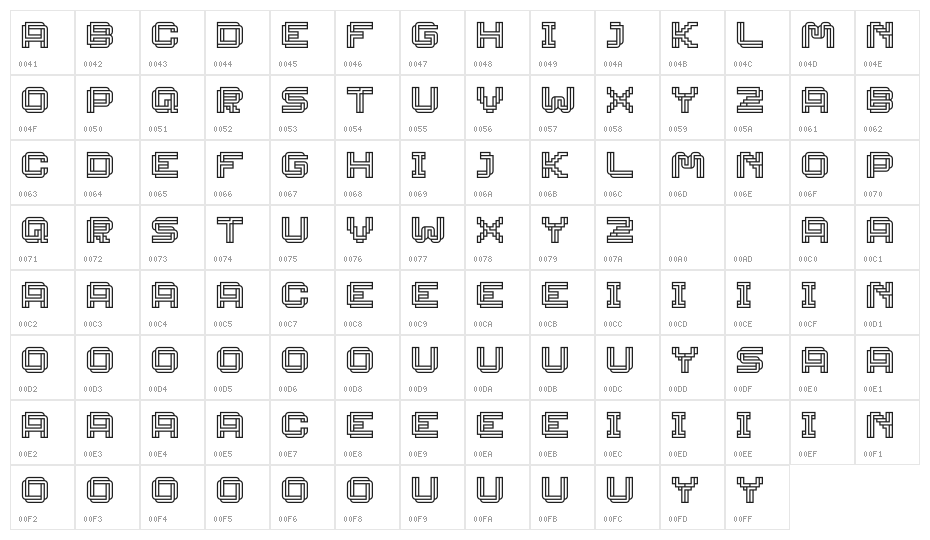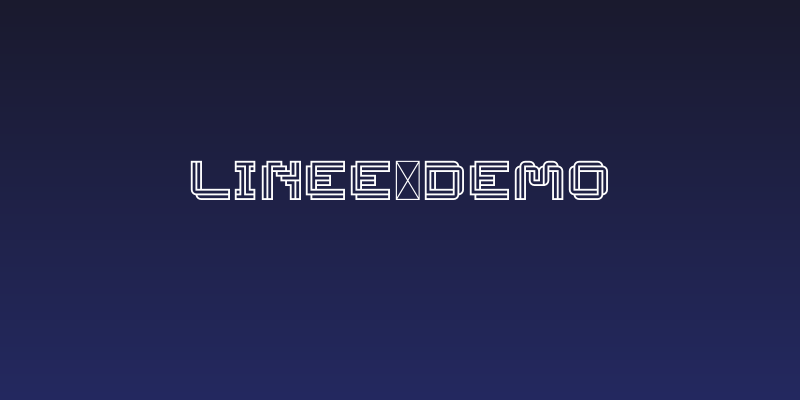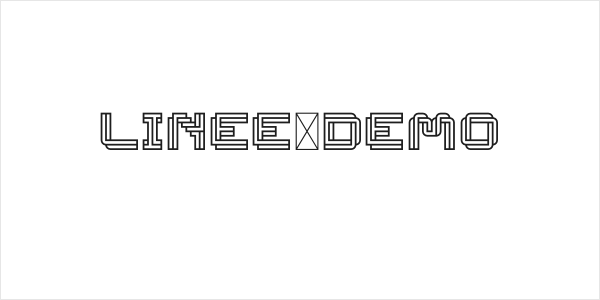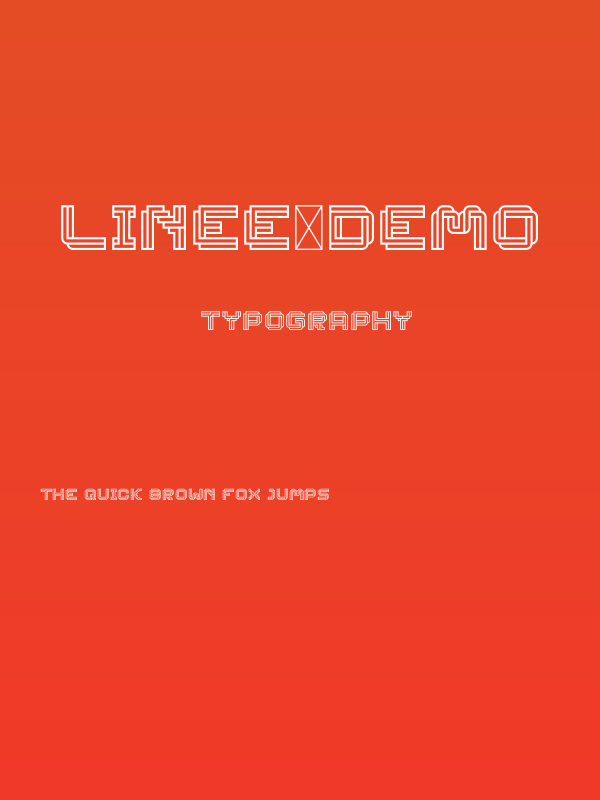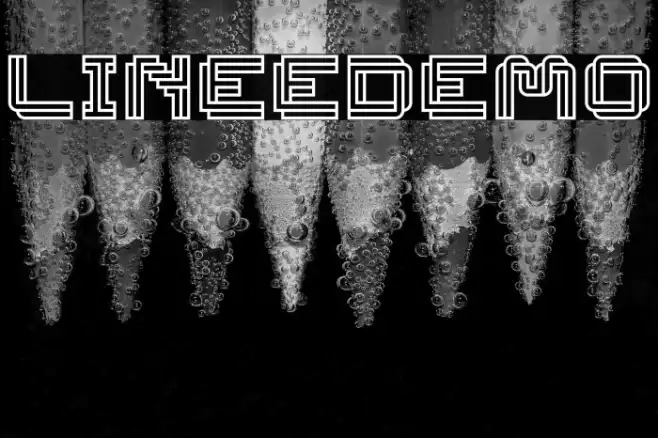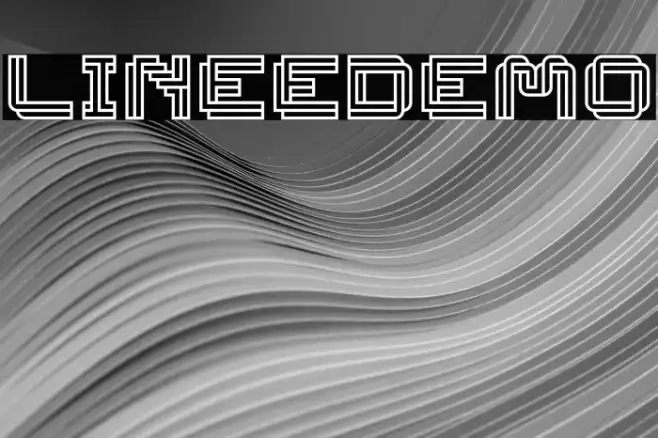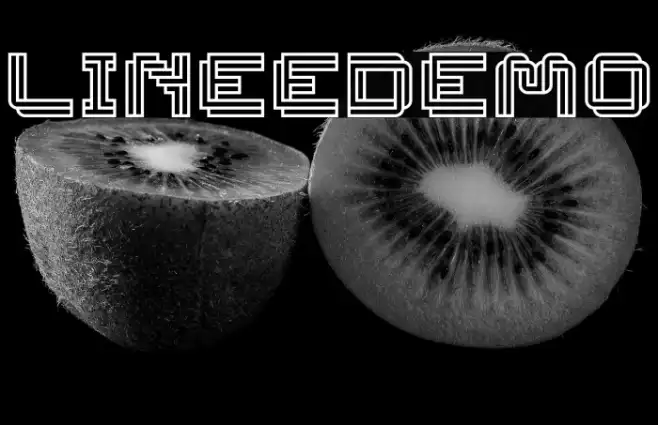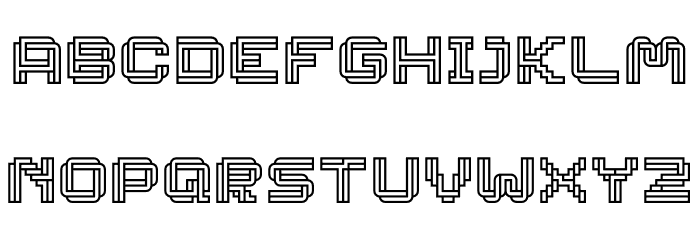
Linee-DEMO Font
Linee-DEMO Description
This font features a unique, geometric design with a three-dimensional effect created by overlapping lines. Each character is constructed with a series of parallel lines that form a grid-like pattern, giving it a modern and technical appearance. The uppercase letters are bold and structured, while the lowercase letters maintain the same style, ensuring consistency across the typeface. The numerals and special characters follow the same design principles, making the font versatile for various applications. The overall look is futuristic and innovative, ideal for projects that require a cutting-edge aesthetic.
| Proposed Projects | Ideal for tech branding, futuristic posters, digital art, and innovative product packaging. |